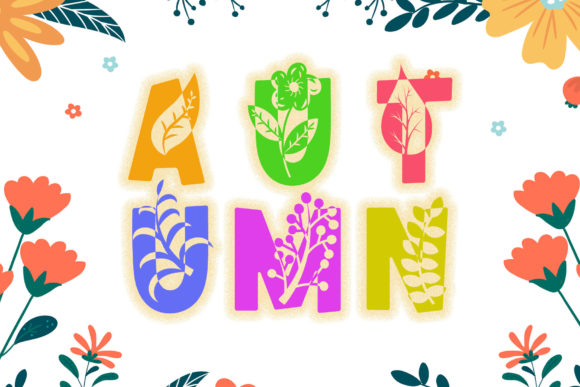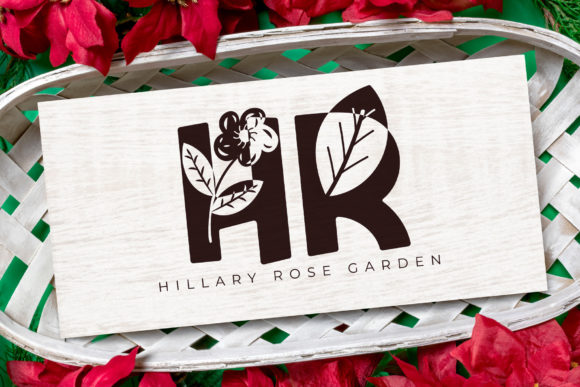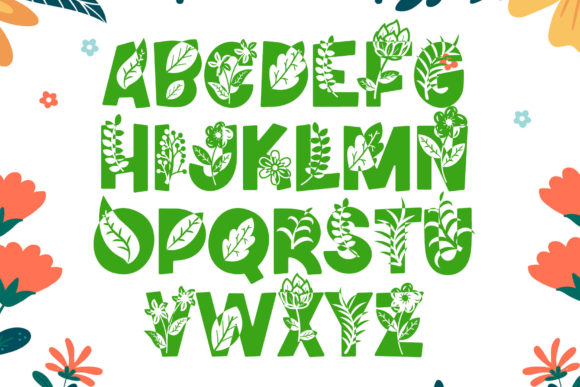
Introduction to Fall Vibes Font
Fall Vibes is a cool and fun decorative font.
It will elevate a wide range of crafting ideas, from cards, to branding, labels and much more Add it confidently to your favorite creations and let yourself be amazed by the outcome generated.
Fall Vibes Font offers exceptional quality and versatility, making it a valuable addition to your design toolkit. Whether you’re creating for personal projects or commercial use, Fall Vibes Font delivers professional results.